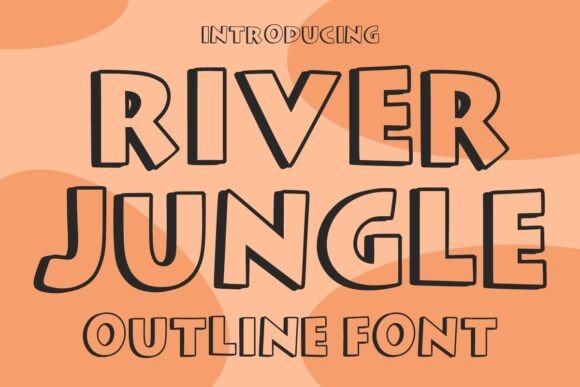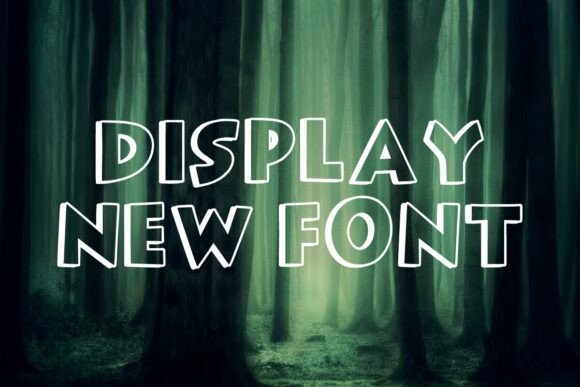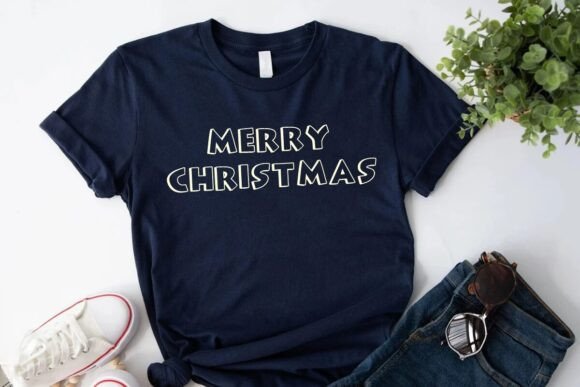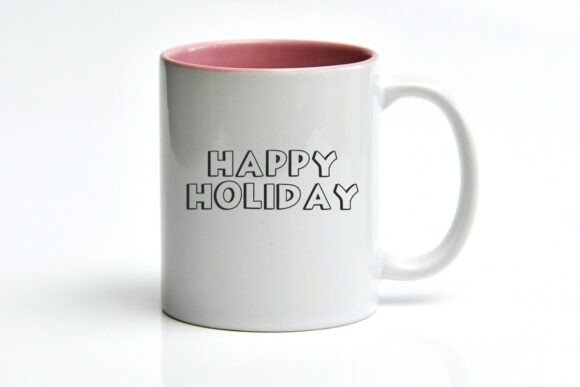
River Jungle Font: A Bold & Playful Display Font for Cricut Crafts
About the River Jungle Font
Presenting River Jungle Font, a unique and stylish typeface that will make your work stand out. River Jungle is a fun and bold outline display font with rounded lettering. It is suitable for any winter and holiday branding project, product packaging, invitations, quotes, t-shirts, labels, posters, or anything that needs a touch of joy.
River Jungle’s bold outlines and rounded forms make it ideal for headlines, posters, and short, impactful statements. It works exceptionally well in packaging design for products targeting a youthful or playful market, particularly those related to winter holidays or festive occasions. However, its playful nature and thick strokes make it less suitable for body text or UI elements where legibility at smaller sizes is crucial.
For optimal visual harmony, pair River Jungle with a clean sans-serif like Lato for body copy or a more refined serif such as Merriweather for a sophisticated contrast. A script font with a similar playful energy, but less weight, could also work effectively, adding a layer of personality without visual clash.
The font’s overall personality is best described as bold, playful, and friendly, making it a strong choice for brands seeking a fun and approachable aesthetic.
River Jungle Font Usage Examples
River Jungle Font Example